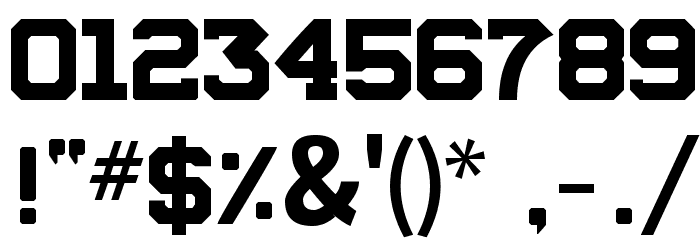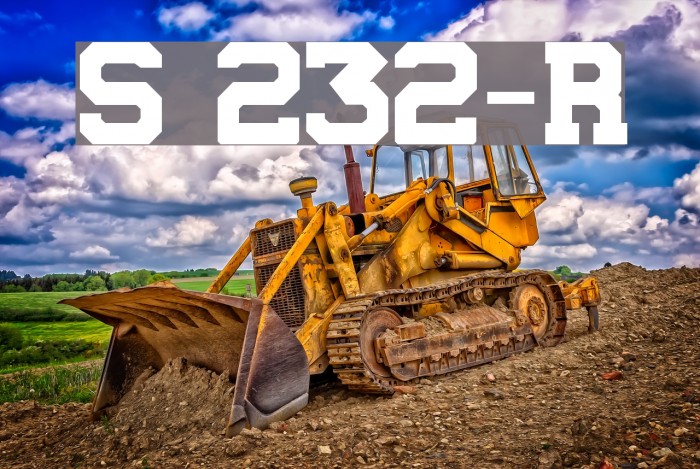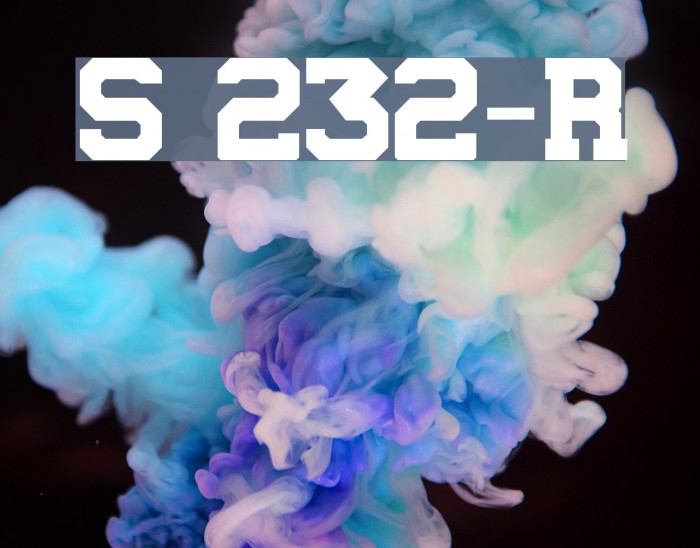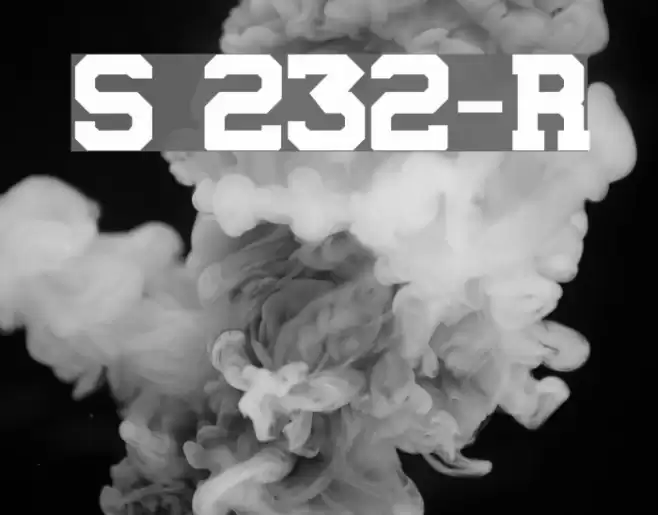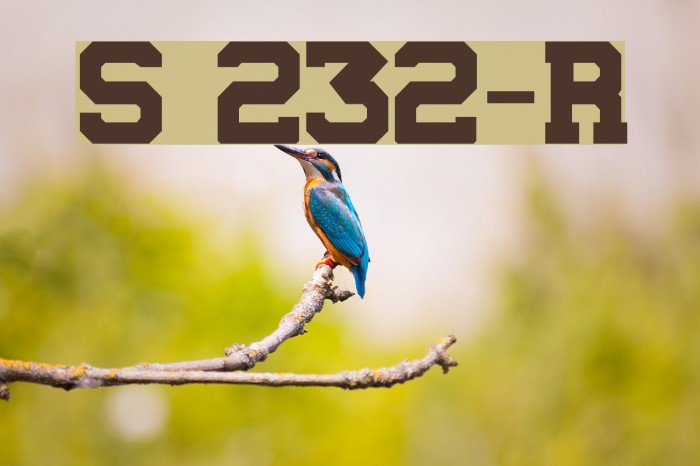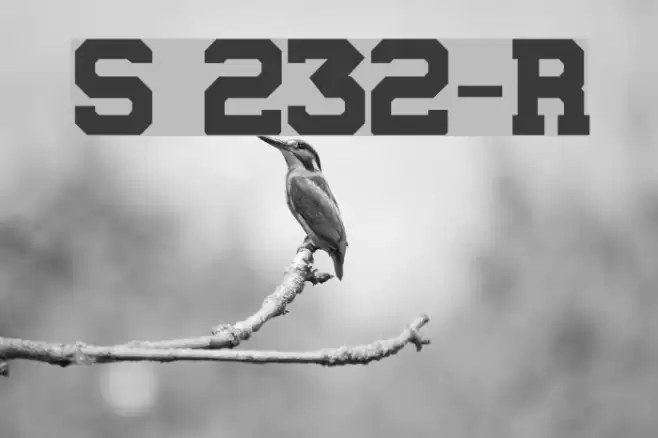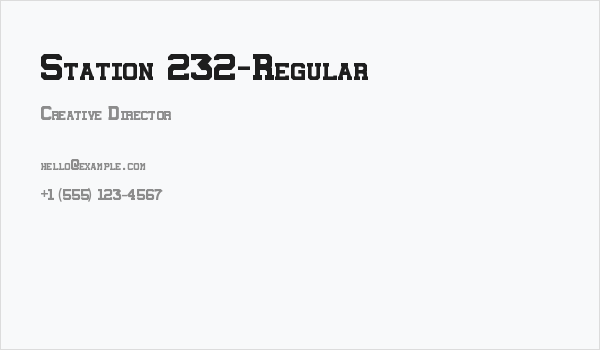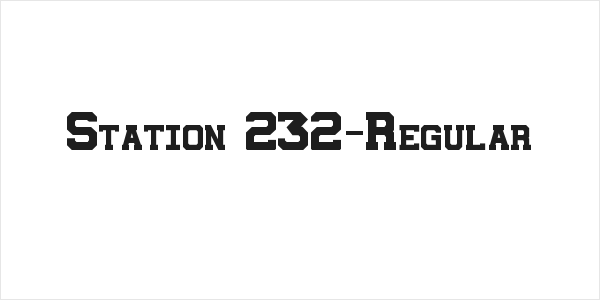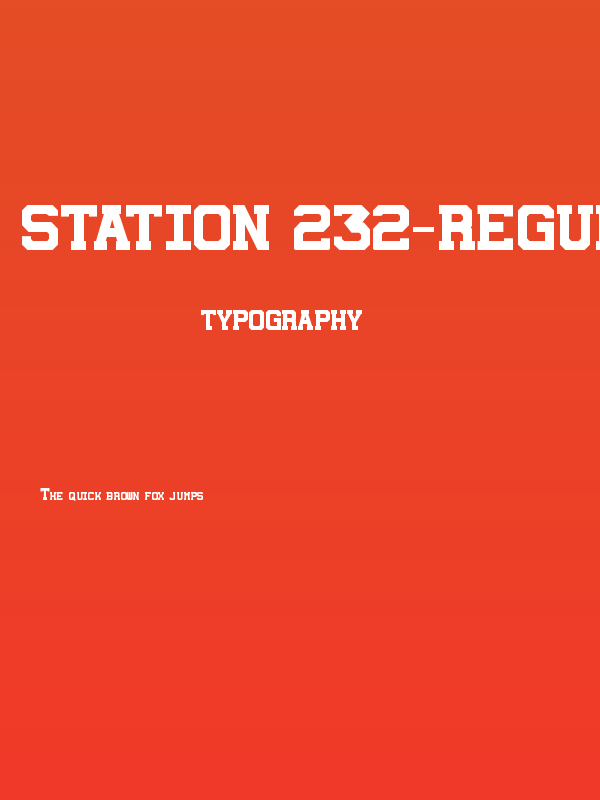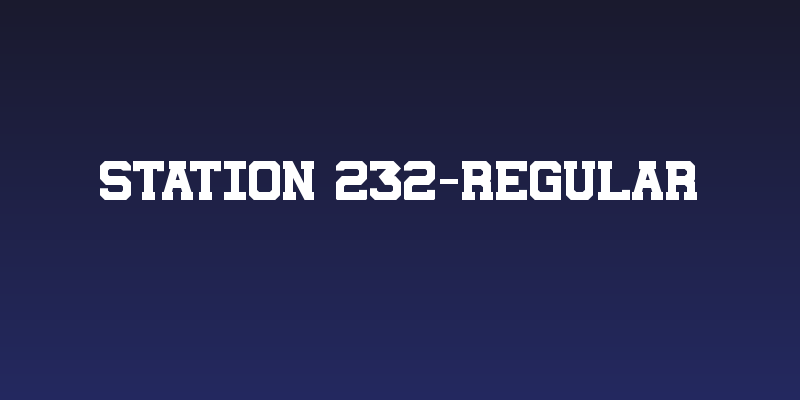
Station 232-Regular Font
Station 232-Regular Description
This font features a bold, geometric style with strong, angular lines and a robust presence. The characters are designed with a uniform thickness, giving them a solid and impactful look. The uppercase letters are particularly striking, with a blocky appearance that conveys strength and stability. The numbers and special characters maintain this consistent style, ensuring a cohesive look across all text. This font's design is reminiscent of industrial or sports themes, making it suitable for projects that require a bold and assertive typeface.
| Proposed Projects | Ideal for sports branding, industrial-themed designs, posters, and headlines. |